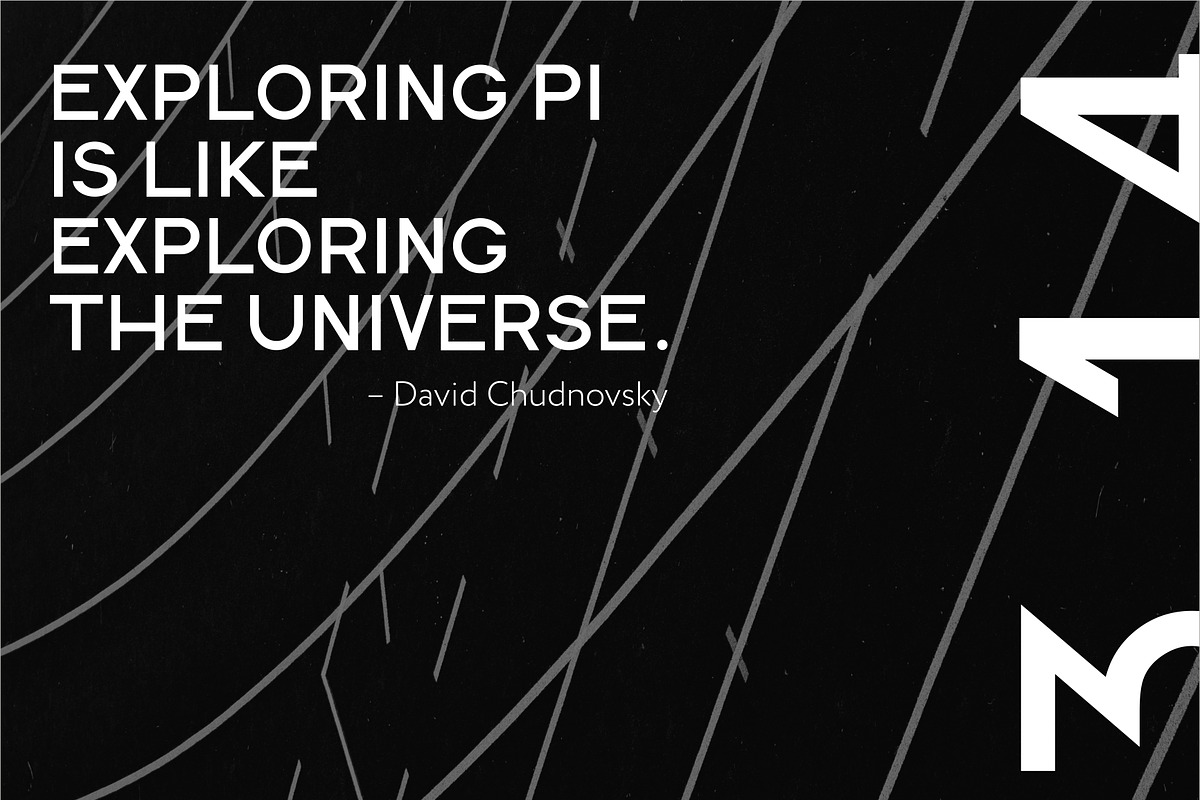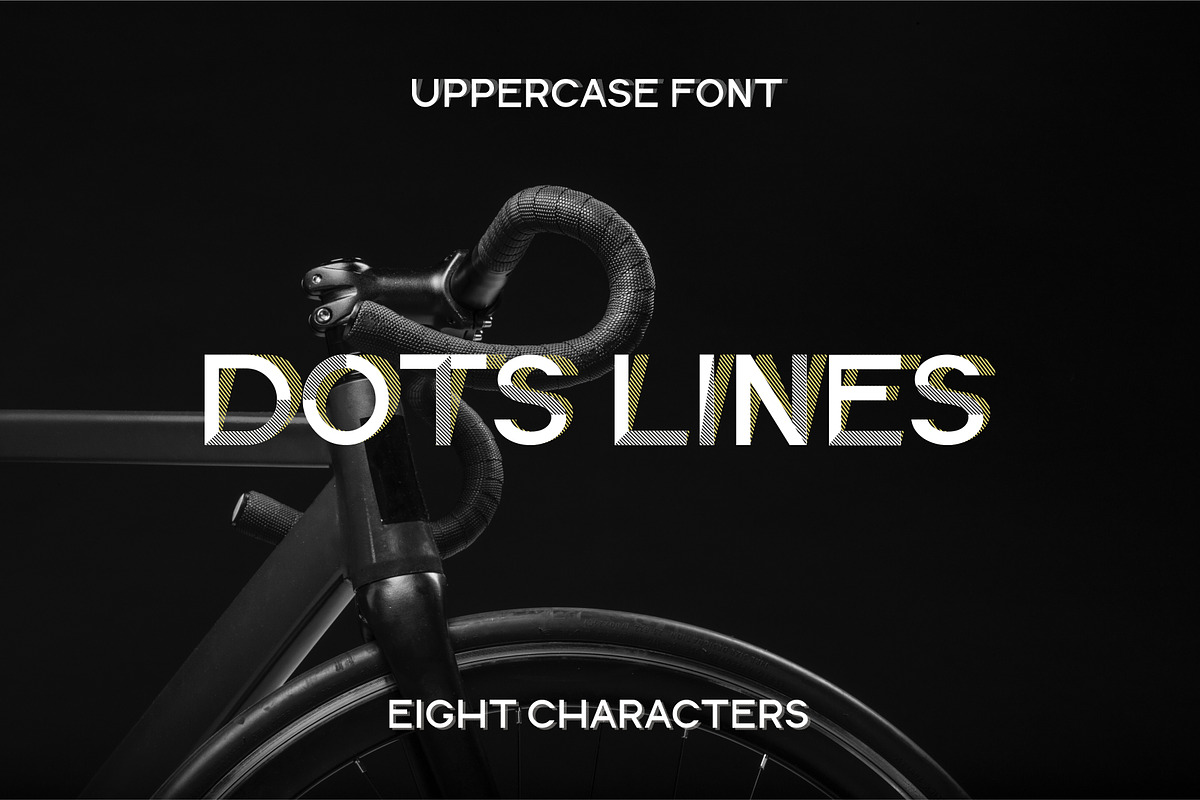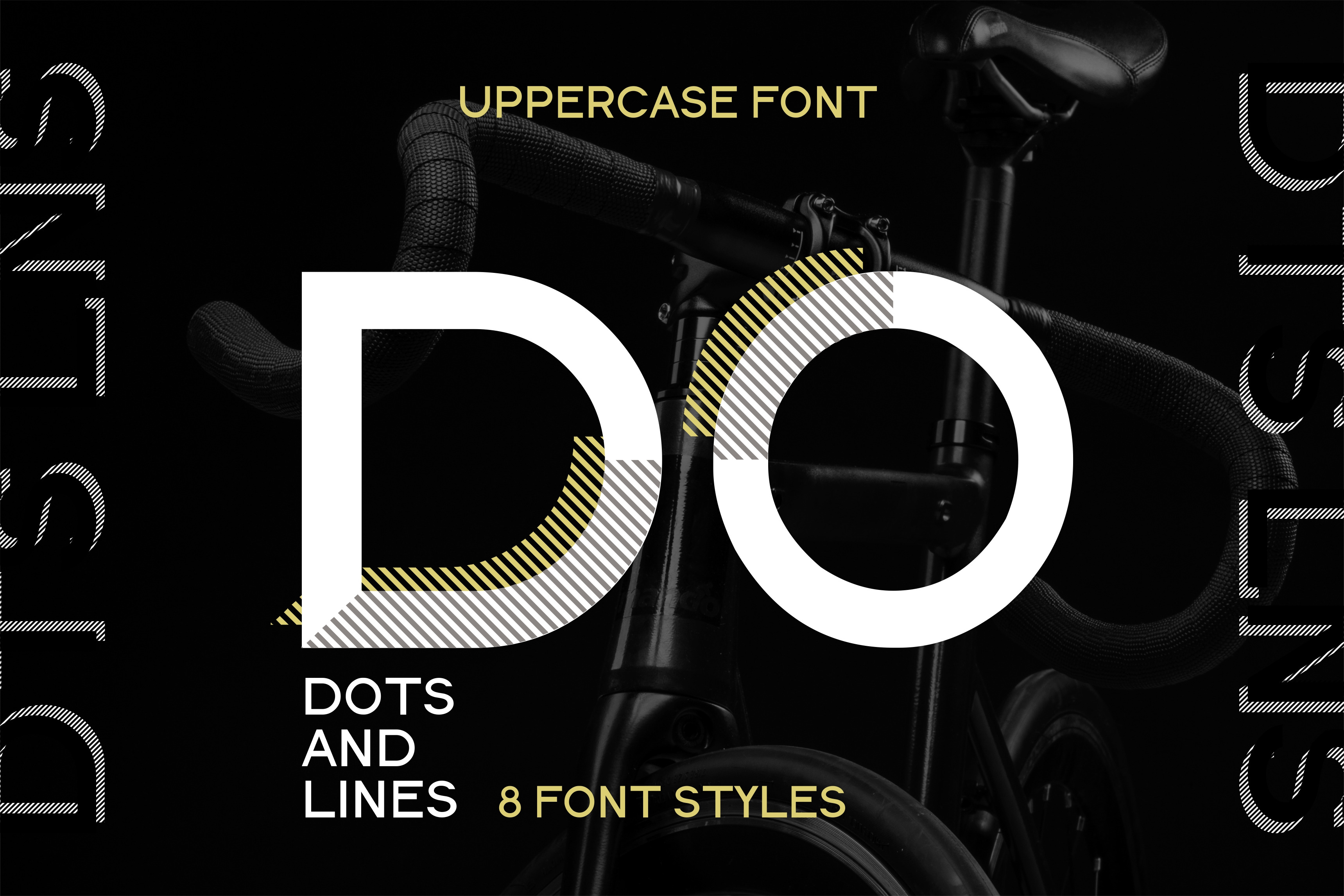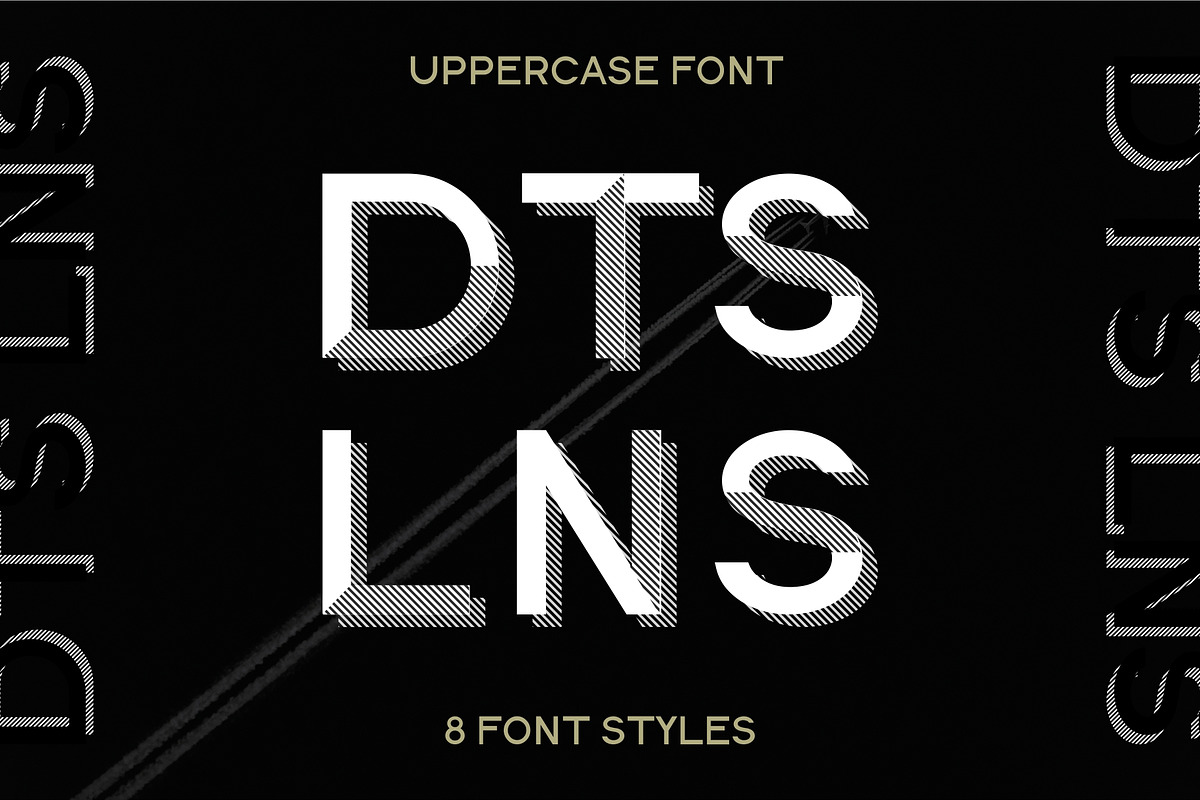
Dots Lines. Display font, 8 styles.
DOTS & LINES - modern uppercase font with 8 styles. Designed for layering different font styles and made amazing typographic compositions. You need only one font and some imagination.
Every styles easy layering. Only uppercase. Ideal for branding, print design, logotype, web design and for all you want. Mix and create wonderful compositions with only one font.